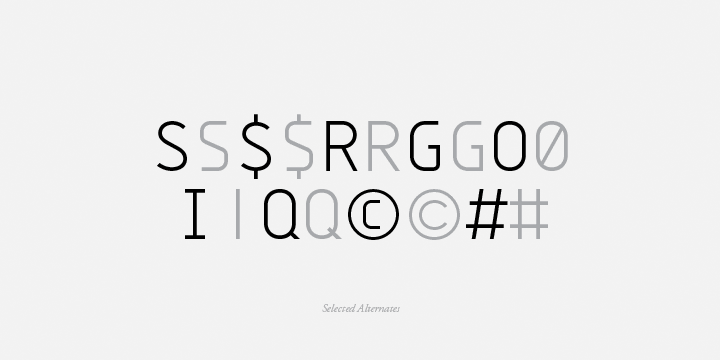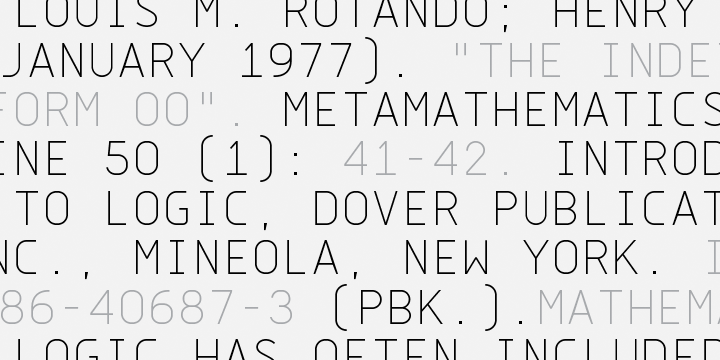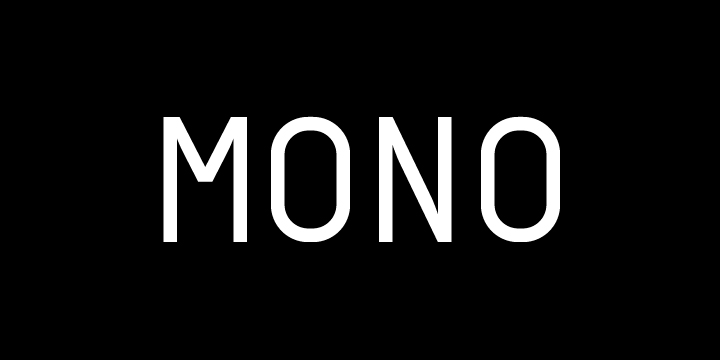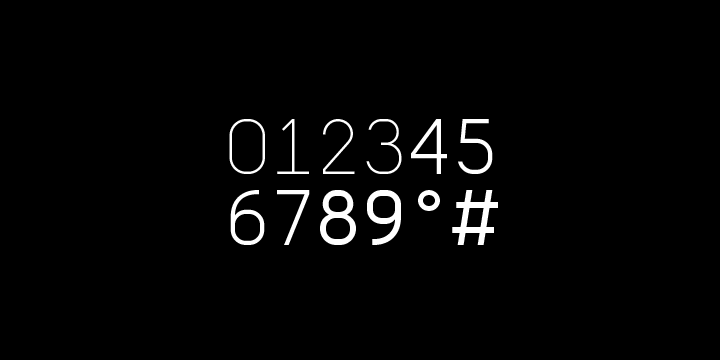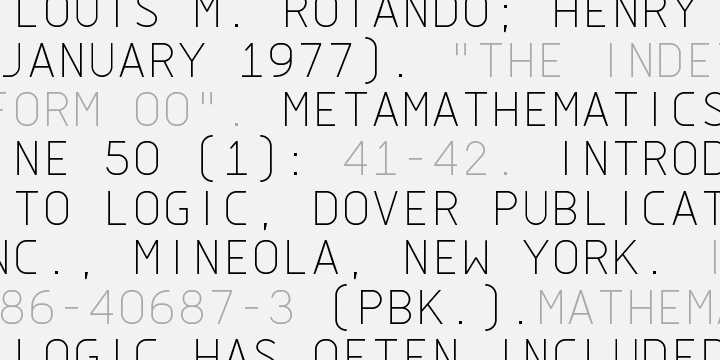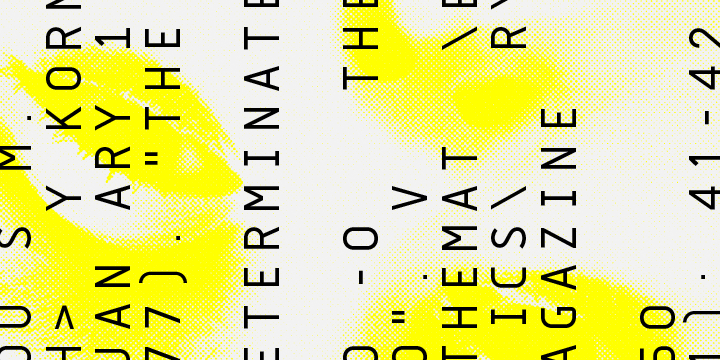
Monocle is a clean and contemporary monospaced geometric sans that excels in titling, data and numerical settings due to its clear and systematic design. The capitals-only format increases the harmony between letter pairings, opposing the irregularity of mixed case fixed-width typefaces.
Stylistically, Monocle has the feel of a neutral sans, yet its underlying structural finish exudes a strong sense of order and authority. Its geometric foundation is especially pronounced in the constructed round forms.
With multiple stylistic sets, individual letters can be exchanged to fine-tune text settings for a unique custom type solution.
Features include:
-Basic Ligature set including ‘f’ ligatures (ae, oe, fi, fl, ff, fh, fj, ft, tt, th, ct, st) -Alternate characters (O, I, S, G, R, Q, _, $, ©, #, •, %) -Slashed zero -Full set of numerators/denominators -Automatic fraction feature (supports any fraction combination) -Extended language support (Latin-1 and Latin Extended-A)